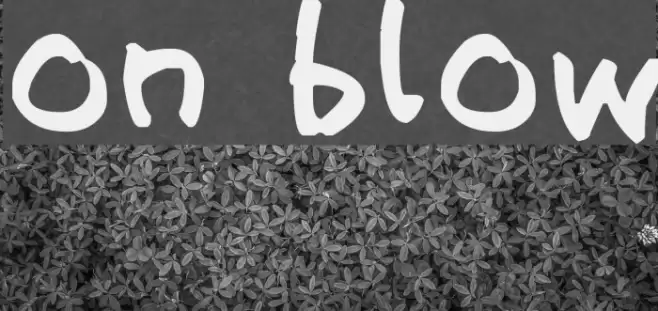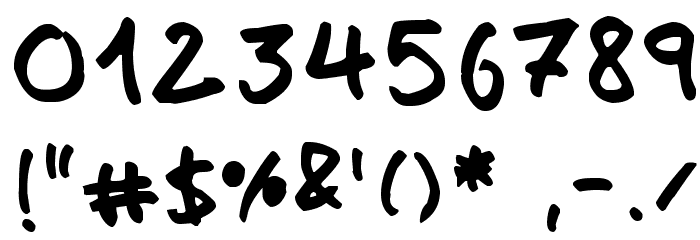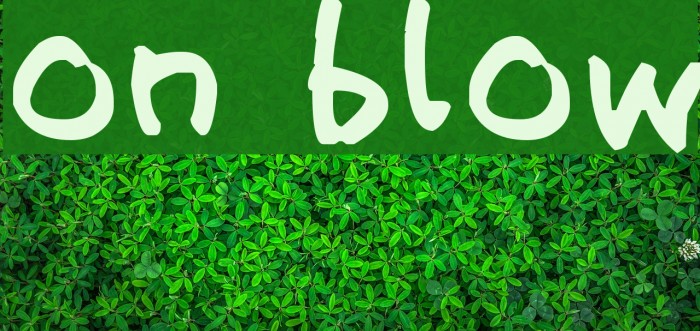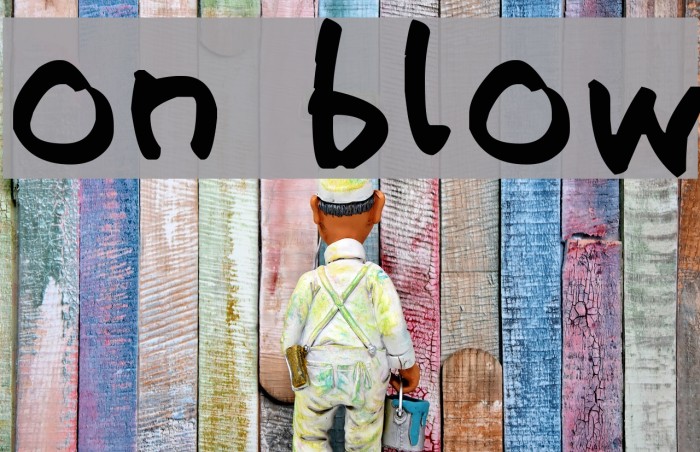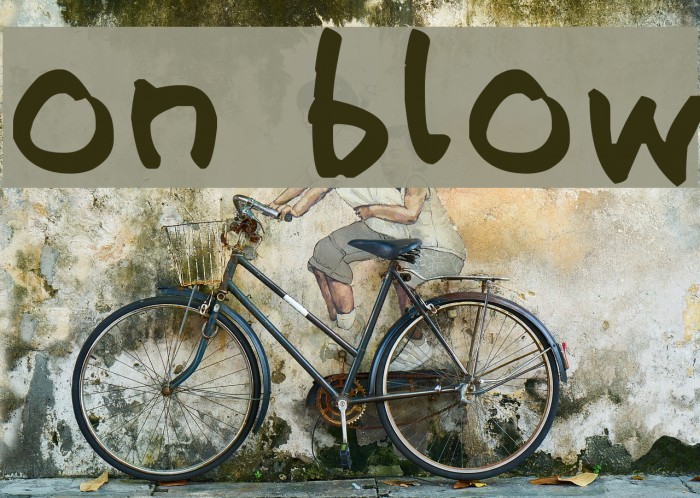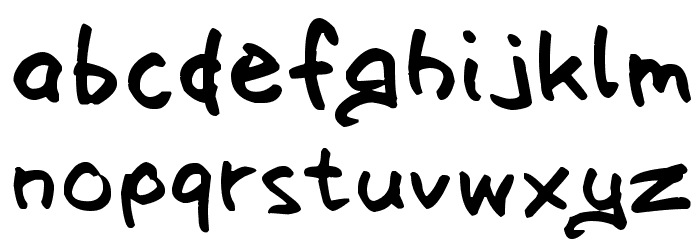
on blow Font
on blow Description
This font exudes a playful and casual handwritten style, characterized by its bold and slightly irregular strokes. The letters have a lively and dynamic appearance, with varying thickness that adds a sense of movement and personality. The uppercase and lowercase letters maintain a consistent style, while the numerals and special characters complement the overall aesthetic. The font's informal nature makes it suitable for projects that aim to convey a sense of fun and approachability.
A bold, playful handwritten font with dynamic strokes from Handwritten fonts.
- Proposed Projects: Ideal for greeting cards, children's books, casual branding, and social media graphics.
- Overall Style: Casual
- Use Case: Logos, Headlines, Informal Invitations